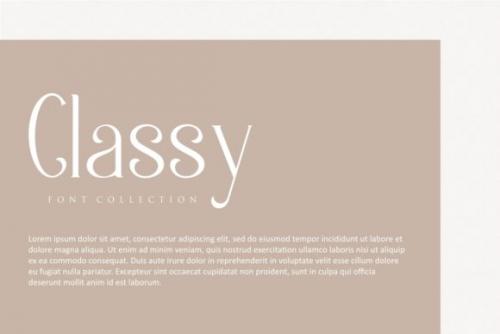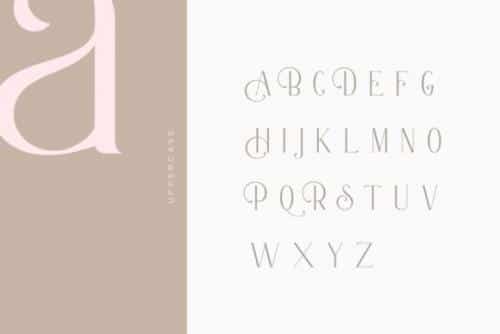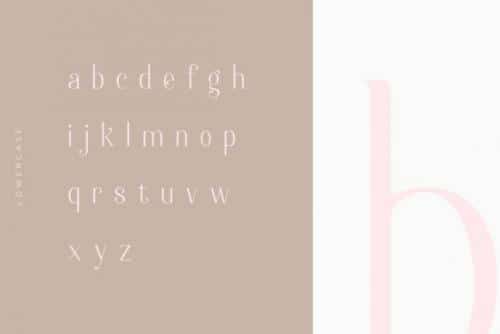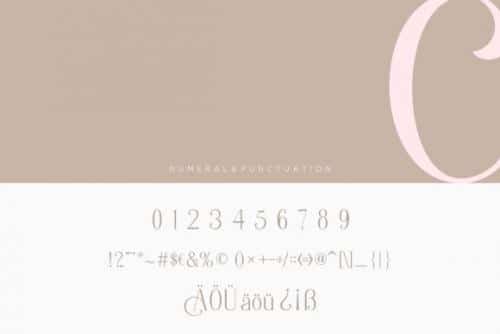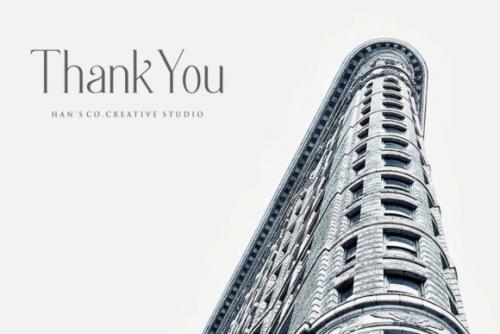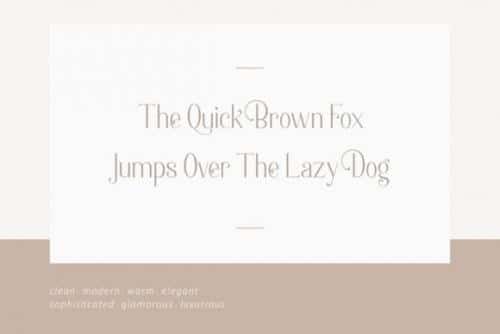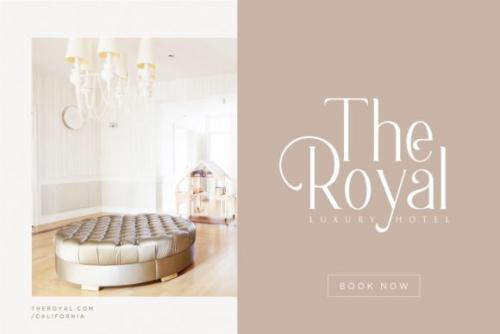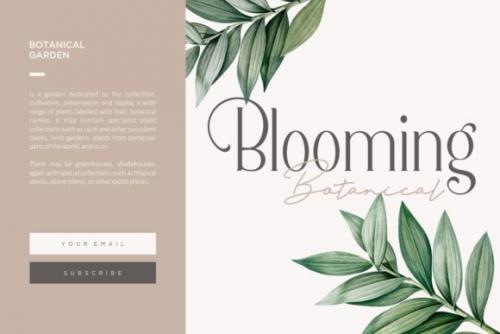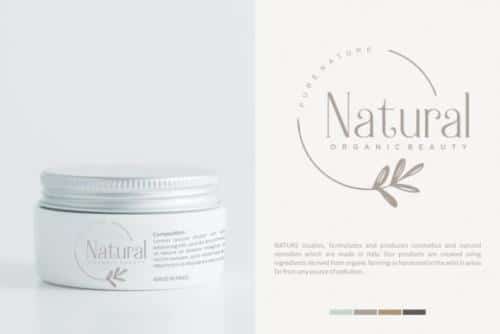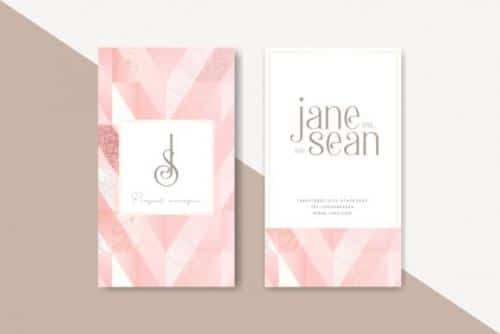
Berlin Collection Font is an elegant serif font designed with full and high accuracy to create a classy font style. It perfectly represents luxurious yet elegant in a modern and minimalist way.
Furthermore it comes with signature style font will make perfectly for elegant logo design, packaging or invitation cards.